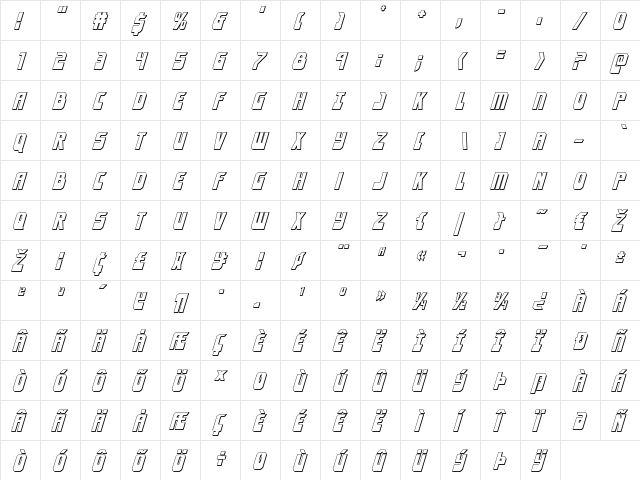
Eldebaran 3D Italic Italic Font Preview
Eldebaran 3D Italic Italic
Design Context for Eldebaran 3D Italic Typeface
Eldebaran 3D Italic is a composed and adaptable typeface that performs quietly and consistently across a wide range of design contexts. The slanted form adds forward momentum and visual energy.
Pro Tip: Try Eldebaran 3D Italic for annotation and caption copy alongside an upright companion — the contrast in angle creates a dynamic but ordered typographic system.